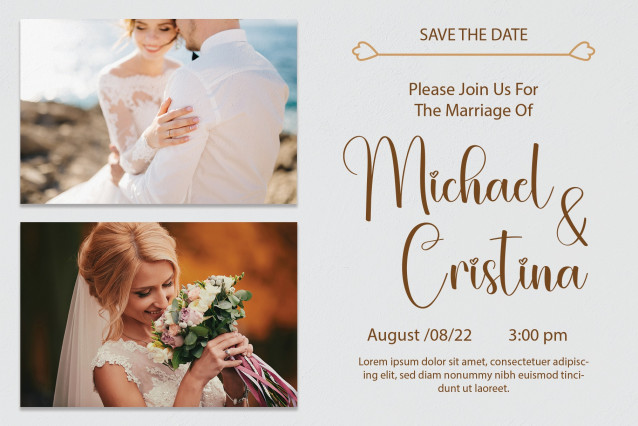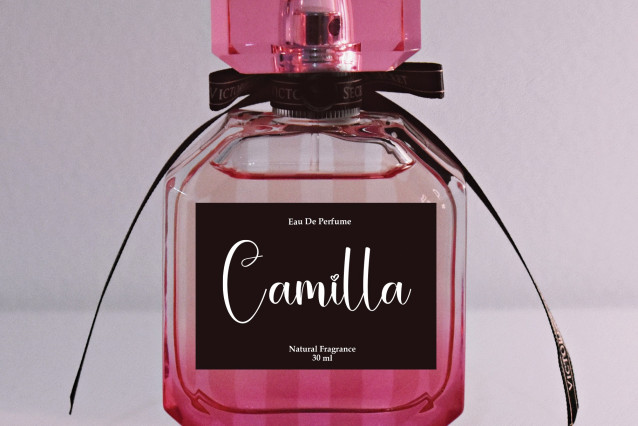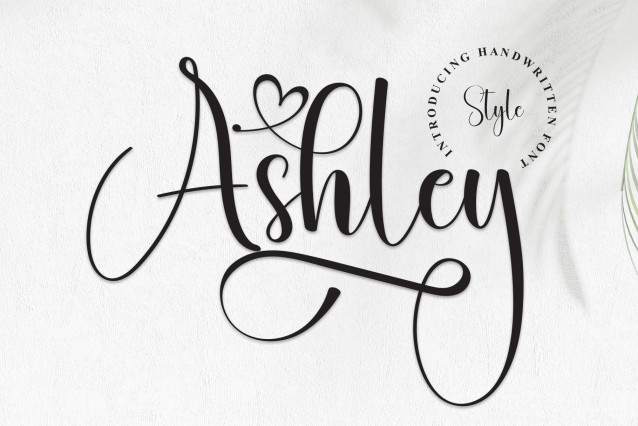
Ashley Font – Special creative products for you, our products will give you an extraordinary experience that will not be forgotten. A popular and professional script font. Modern and elegant, this typeface is made of beautiful creative strokes.
This font is perfect for your creative ideas, both formal and informal. It has a modern style with a touch of creative ideas that is very suitable to be applied anywhere that requires creative ideas such as invitation cards, letterheads, website logos, social media, banners, advertisements, brochures, packaging products, leather products, and any product that requires writing.